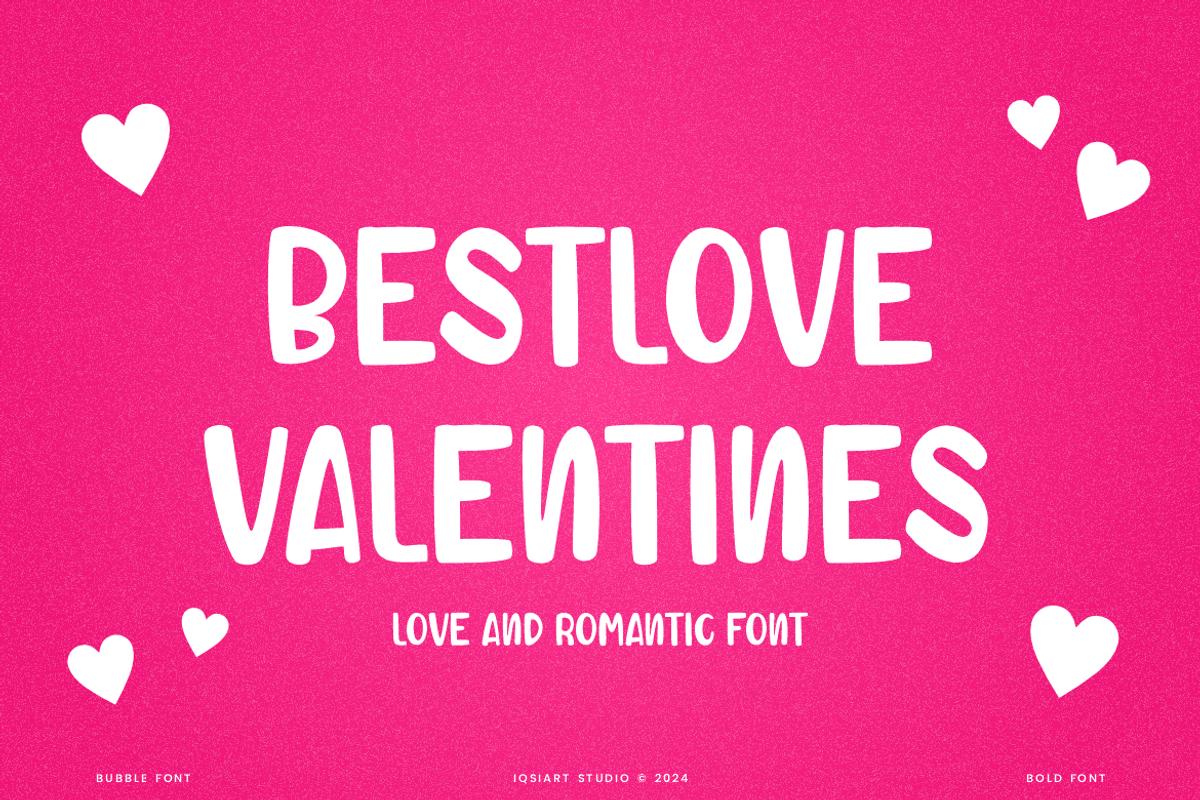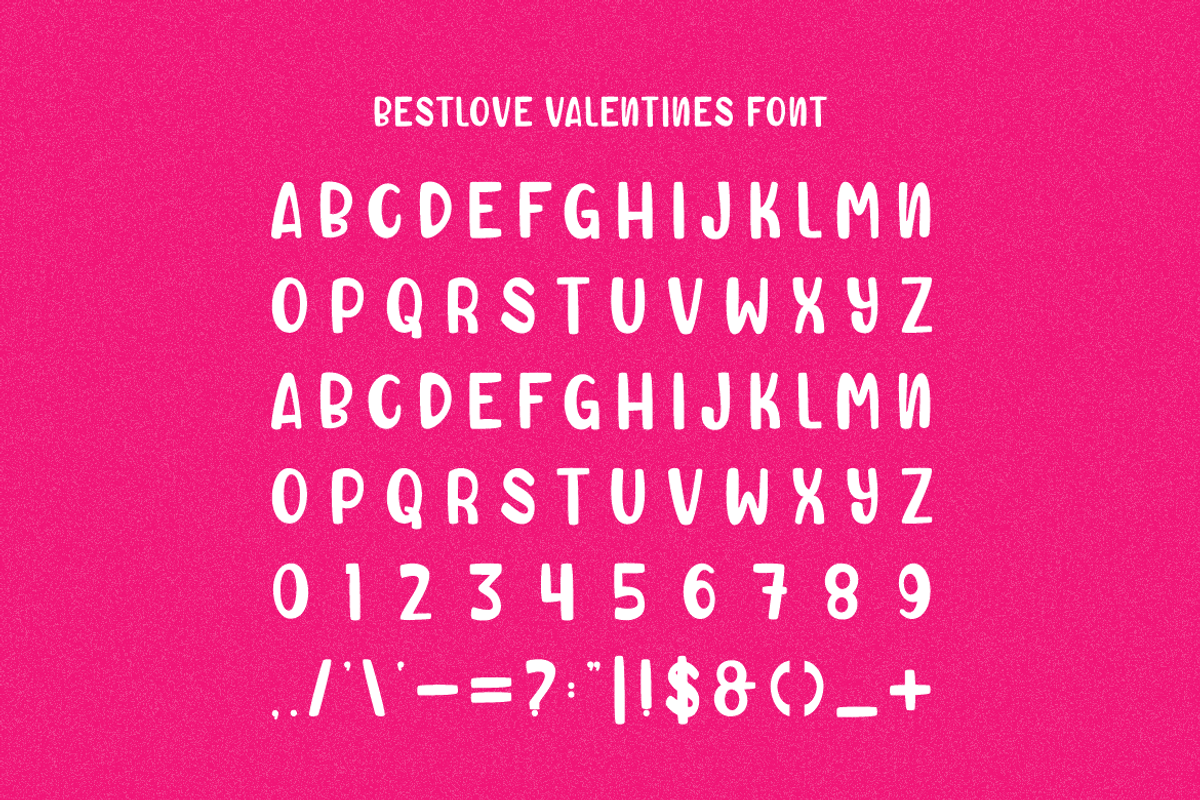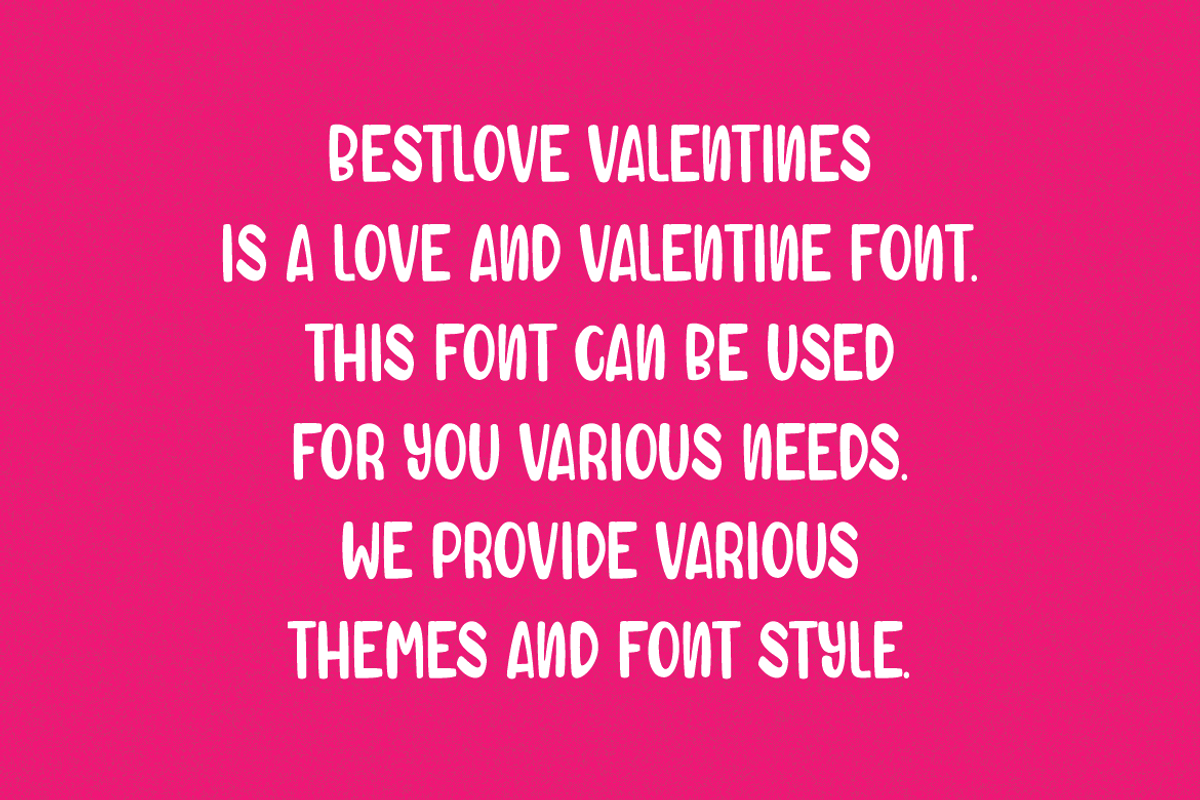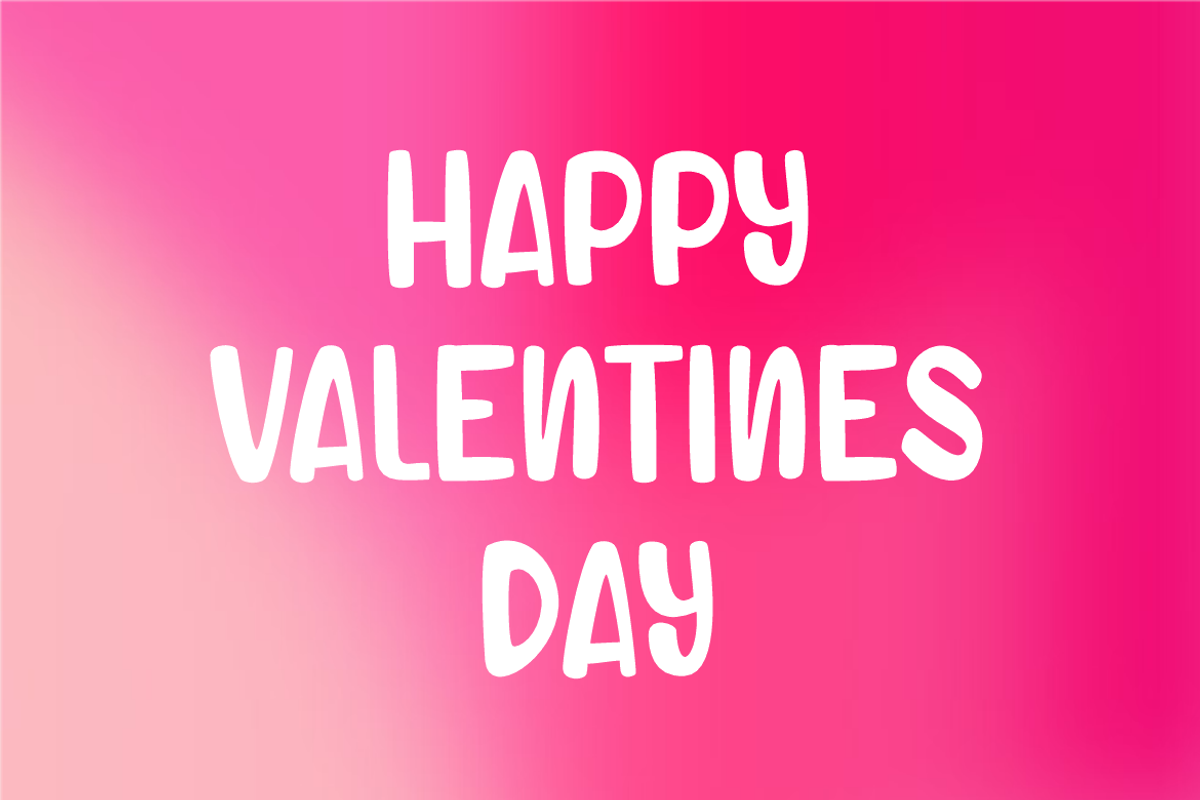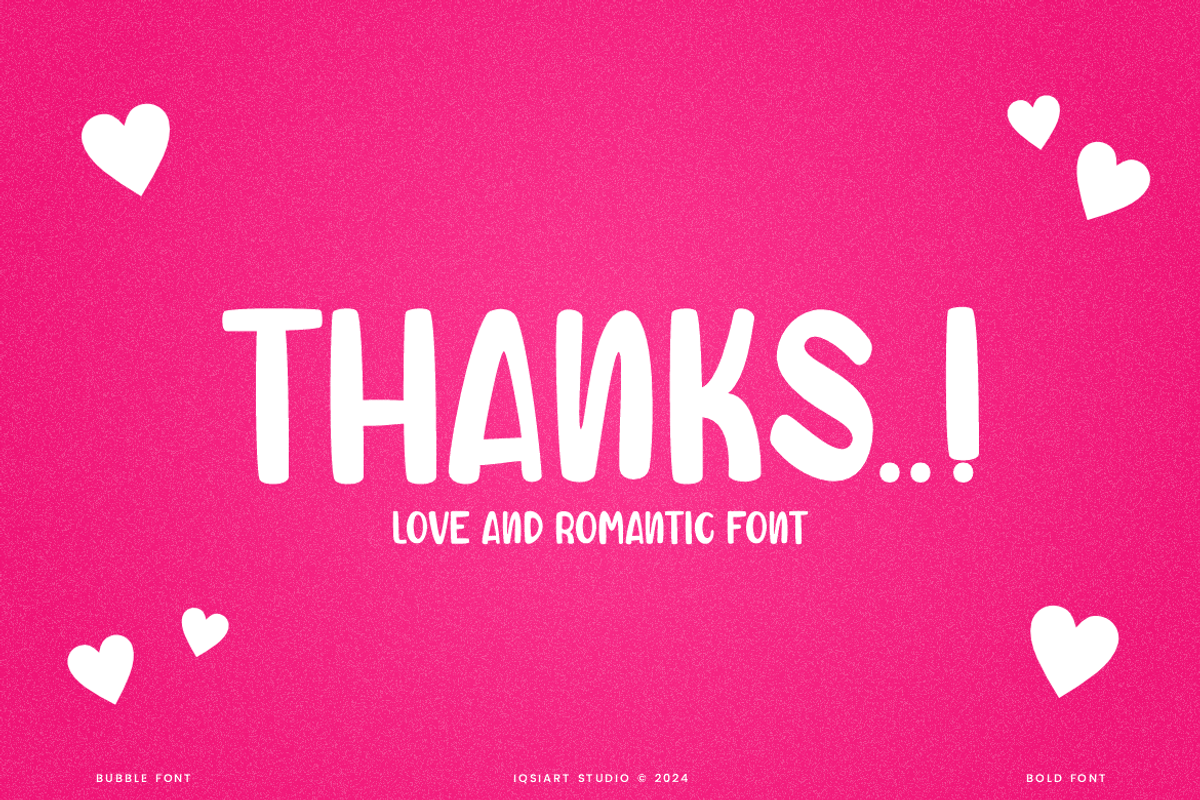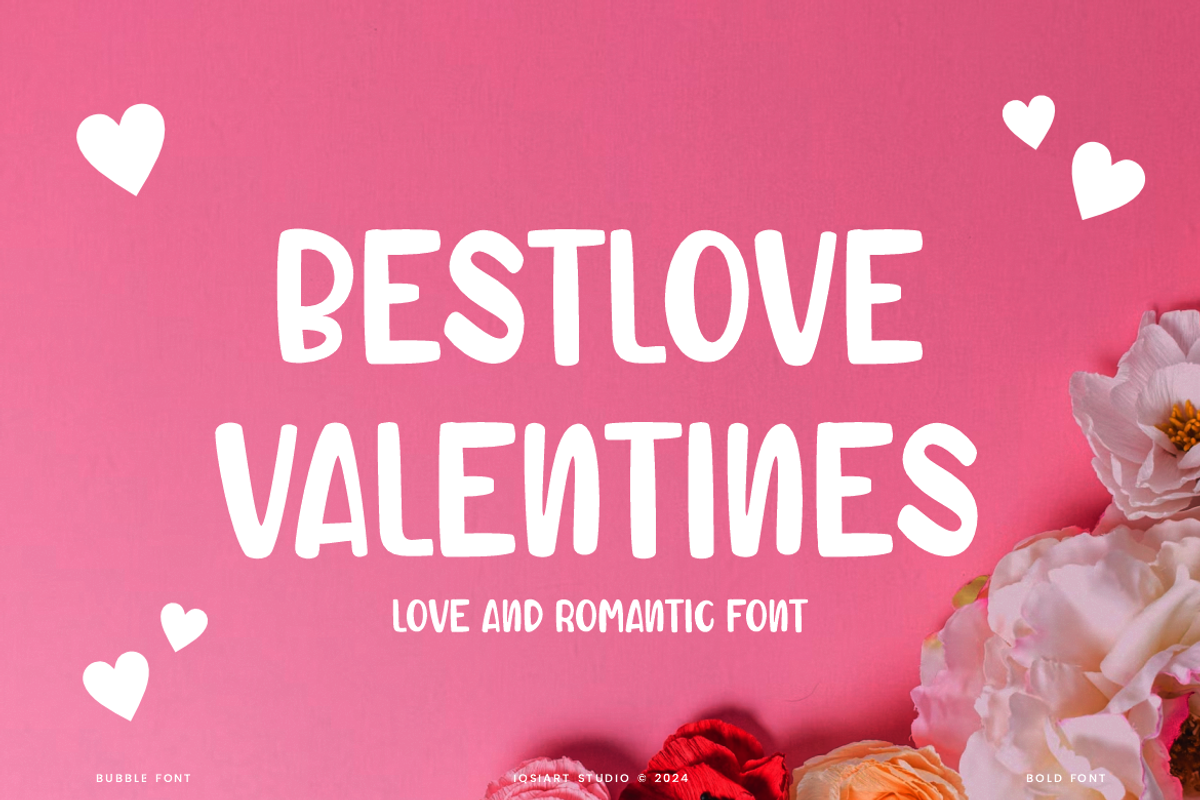
Bestlove Valentines Font
Bestlove Valentines Font is a best and authentic display font. This font can be used for your various needs. We provide various themes and font styles. visit our profile to get a wide variety of themes and different font styles you need.